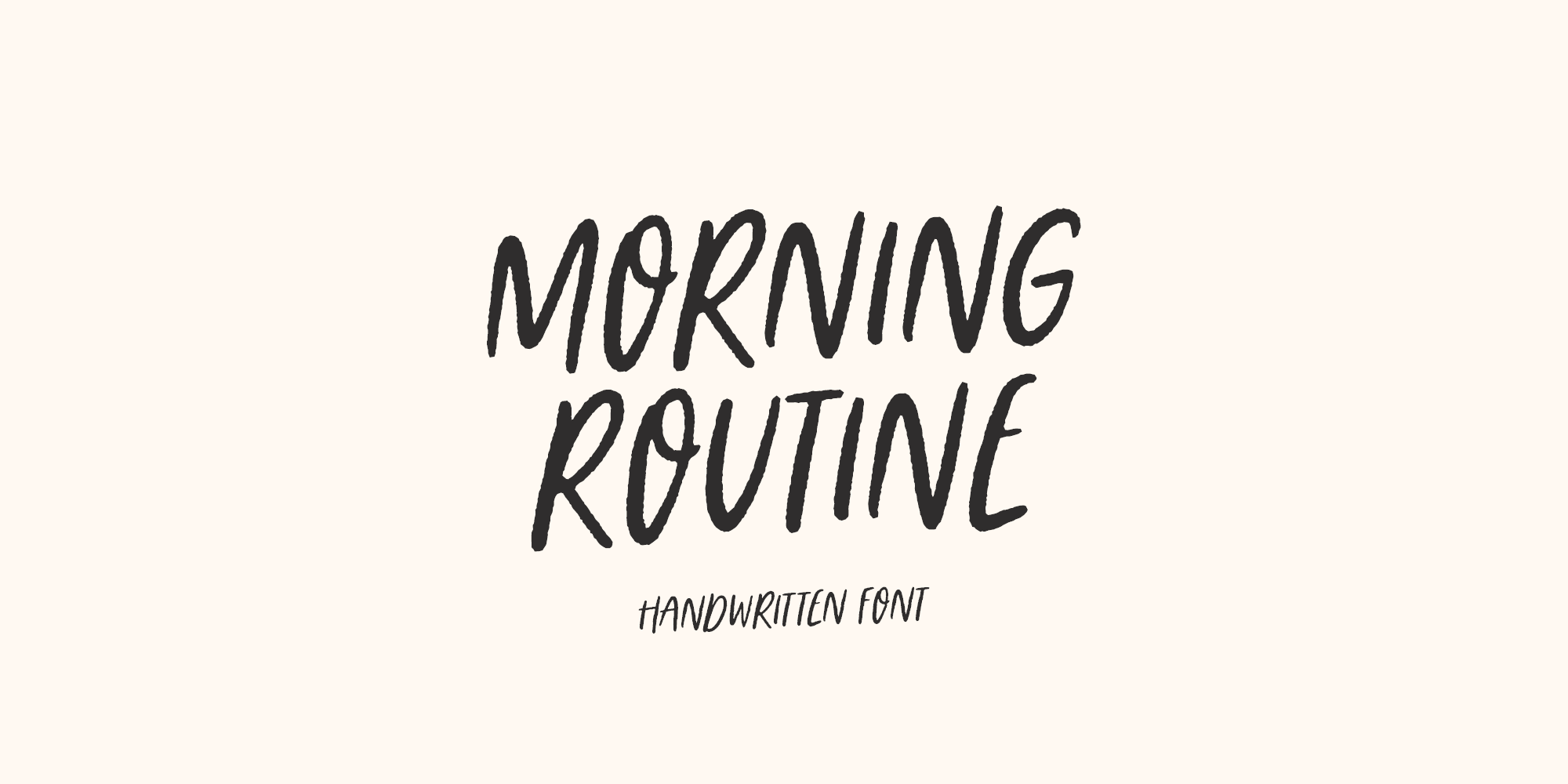
The Morning Routine Font is an excellent choice for designs that aim for a fresh, clean, and effortlessly charming aesthetic, reminiscent of a peaceful start to the day. Imagine it gracing the cover of a self-care journal, adding a gentle and inviting touch to a wellness blog, or bringing a serene feel to minimalist home decor branding. It's also perfectly suited for handmade product labels, comforting social media graphics, thoughtful stationery, and any project where you want to convey a sense of calm, simplicity, and a touch of personal warmth. Its often soft edges, organic forms, and approachable appearance make it ideal for conveying sincerity and a unique, artistic flair.
What makes the Morning Routine Font so exciting is its ability to instantly infuse a design with a feeling of tranquility and authentic appeal. It frequently features subtle imperfections and a natural flow that mimics genuine handwriting or a relaxed sketch, making it feel organic and incredibly inviting. This font has a comforting and distinctive personality that can instantly elevate your design, making it feel both quaint and creatively expressive. It’s designed to capture attention with its unassuming beauty, ensuring your message is not just seen, but felt with a sense of delightful authenticity.
The Morning Routine Font family typically might be offered in a single, impactful weight to maximize its unique hand-drawn effect, though some variations might include stylistic alternates or unique ligatures that enhance its handwritten appeal. Its primary focus is usually on its distinctive visual impact rather than extensive weight ranges. These variations empower designers to create a truly inviting and memorable display, ensuring the Morning Routine Font Free Download can adapt to a wide array of projects while maintaining its signature, gentle charm.